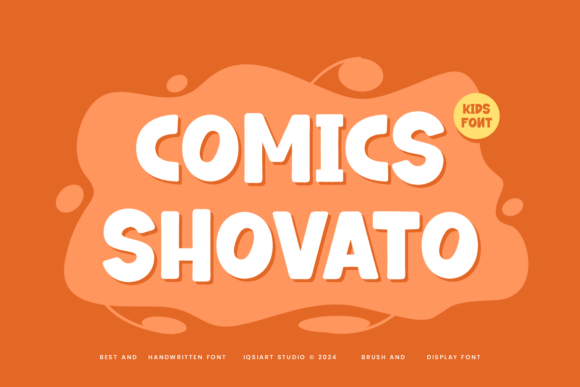
Introducing Comics Shovato Font: The Ultimate Display Font for Playful and Energetic Designs
Are you looking for a font that can add a playful and energetic touch to your designs? Look no further than Comics Shovato Font. This bold, fun comic display font is perfect for titles, posters, and designs that need a friendly and eye-catching style. With its thick, rounded letters, Comics Shovato Font is sure to make your designs stand out from the crowd.
What is Comics Shovato Font?
Comics Shovato Font is a display font designed to give your designs a playful and energetic feel. Its thick, rounded letters are perfect for creating eye-catching titles, posters, and designs that need a friendly and approachable style. Whether you’re designing a comic book, a children’s book, or a poster for a fun event, Comics Shovato Font is the perfect choice.
One of the key features of Comics Shovato Font is its bold and fun design. The font is carefully crafted to give a sense of playfulness and energy, making it perfect for designs that need to grab the attention of your audience. The thick, rounded letters are easy to read and give a sense of friendliness, making it perfect for designs that need to appeal to a wide range of audiences.
Key Features of Comics Shovato Font
- Bold and Fun Design: Comics Shovato Font has a bold and fun design that is perfect for creating eye-catching titles and posters.
- Thick, Rounded Letters: The font features thick, rounded letters that give a sense of playfulness and energy.
- Playful and Energetic Feel: Comics Shovato Font is designed to give your designs a playful and energetic feel, making it perfect for comics, children’s books, and fun events.
- Easy to Read: The font is easy to read, even at large sizes, making it perfect for titles and posters.
- Friendliness: The font has a friendly and approachable style, making it perfect for designs that need to appeal to a wide range of audiences.
Uses of Comics Shovato Font
Comics Shovato Font is a versatile font that can be used in a variety of designs, including:
- Comic Books: Comics Shovato Font is perfect for comic books, graphic novels, and other sequential art.
- Children’s Books: The font is also great for children’s books, picture books, and other kids’ literature.
- Posters: Comics Shovato Font is perfect for posters, flyers, and other promotional materials.
- Titles and Headings: The font is great for titles, headings, and other display text.
- Logos and Branding: Comics Shovato Font can also be used for logos and branding materials, such as business cards and letterheads.
Benefits of Using Comics Shovato Font
There are many benefits to using Comics Shovato Font in your designs. Here are a few:
- Attention-Grabbing: The font is designed to grab attention and draw the eye.
- Playful and Energetic: Comics Shovato Font gives your designs a playful and energetic feel that is sure to engage your audience.
- Easy to Read: The font is easy to read, even at large sizes.
- Versatile: Comics Shovato Font can be used in a variety of designs, from comic books to posters.
- Unique: The font has a unique and distinctive style that sets it apart from other fonts.
- Use it for Titles and Headings: Comics Shovato Font is perfect for titles, headings, and other display text.
- Experiment with Colors: The font looks great in a variety of colors, so don’t be afraid to experiment.
- Pair it with Other Fonts: Comics Shovato Font can be paired with other fonts to create a unique and interesting look.
- Use it for Display Text: The font is designed for display text, so use it for titles, posters, and other eye-catching designs.
Comics Shovato Font is a bold, fun comic display font that is perfect for titles, posters, and designs that need a friendly and eye-catching style. With its thick, rounded letters and playful and energetic feel, it’s sure to make your designs stand out from the crowd. Whether you’re designing a comic book, a children’s book, or a poster for a fun event, Comics Shovato Font is the perfect choice.